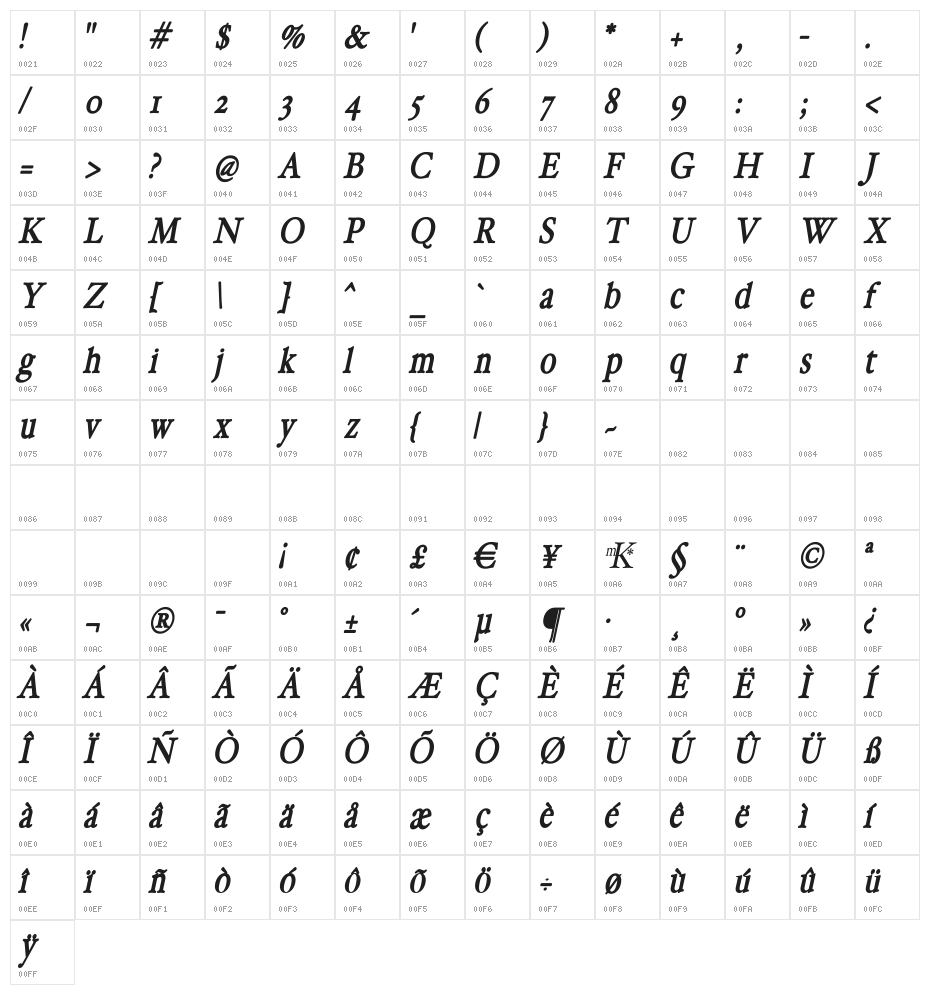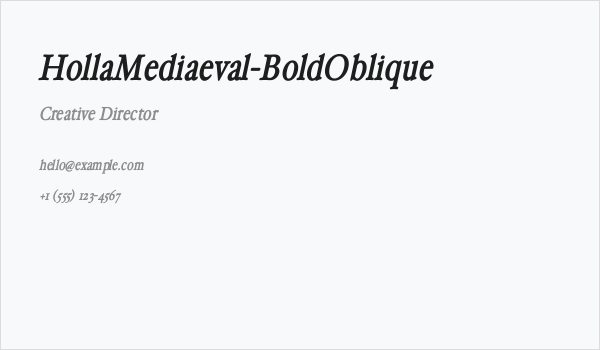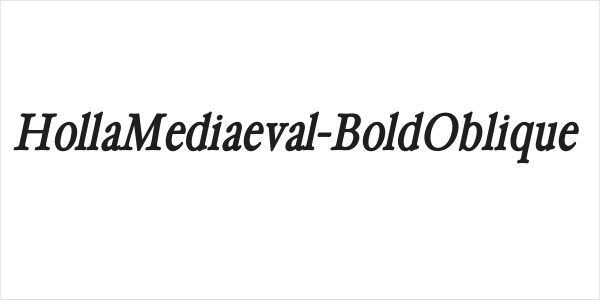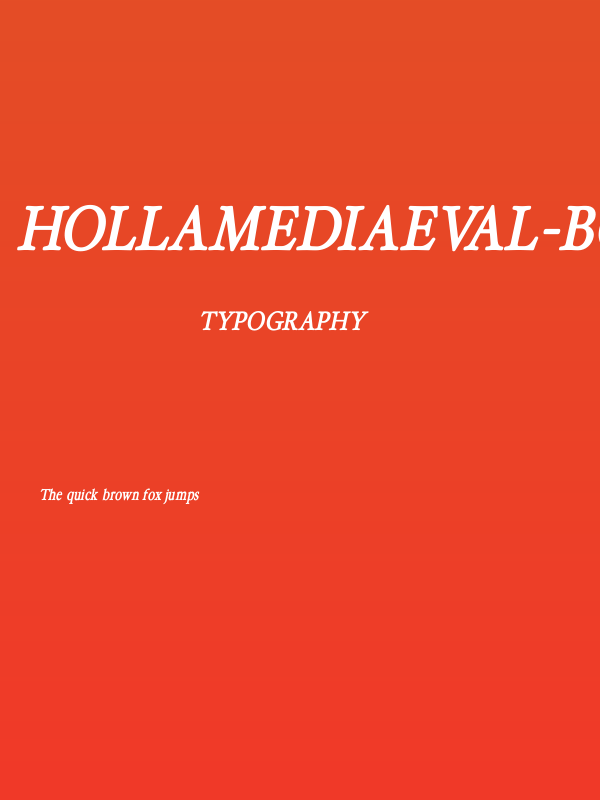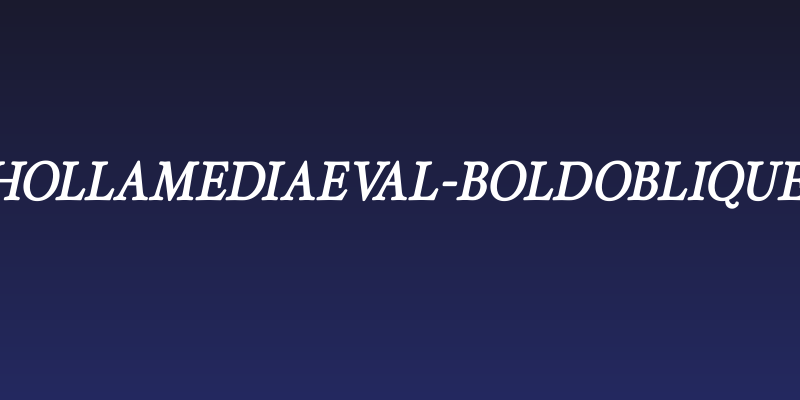
HollaMediaeval-BoldOblique Font
HollaMediaeval-BoldOblique Description
This font features a bold and oblique style, characterized by its strong, slanted letterforms that convey a sense of movement and dynamism. The serifs are pronounced, adding a touch of elegance and tradition to the overall design. The uppercase letters are tall and commanding, while the lowercase letters maintain a consistent flow with slightly rounded edges. The numerals are distinct and easily readable, complementing the alphabetic characters. Special characters are well-integrated, maintaining the font's cohesive appearance. The overall impression is one of sophistication and authority, making it suitable for a variety of formal and creative applications.
Overall StyleClassic
Use CaseHeadlines, Logos, Editorial design
Proposed ProjectsIdeal for book covers, formal invitations, branding materials, and editorial design.